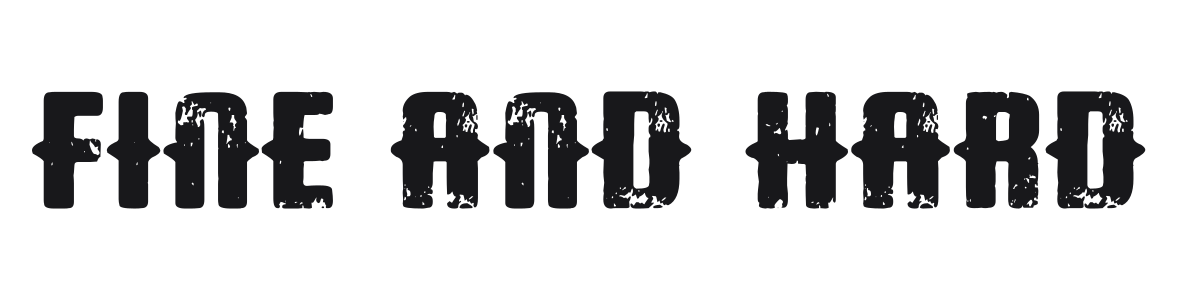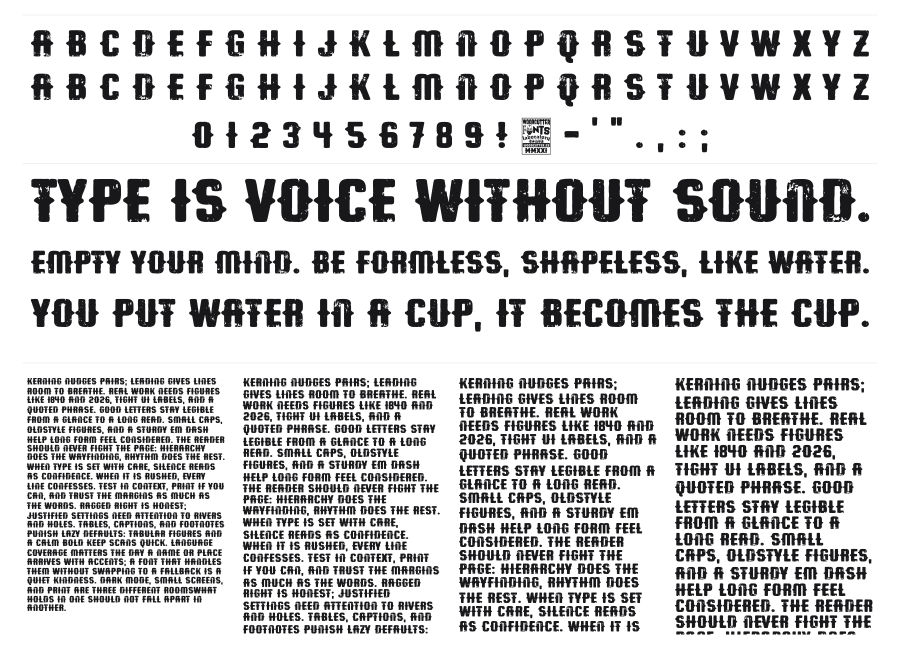
Fine and Hard
Fine and Hard is a heavy condensed slab-serif with aggressive distressing that makes every character look stamped, worn, or battle-scarred. Created by Woodcutter Manero, the font channels raw punk and grunge energy with its eroded strokes and blunt, battered serifs. It works at large sizes where the texture reads as deliberate force rather than noise.